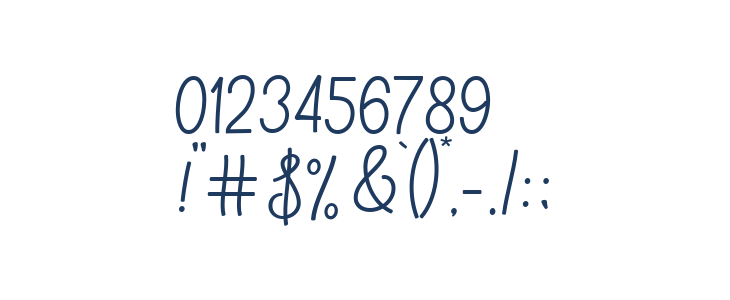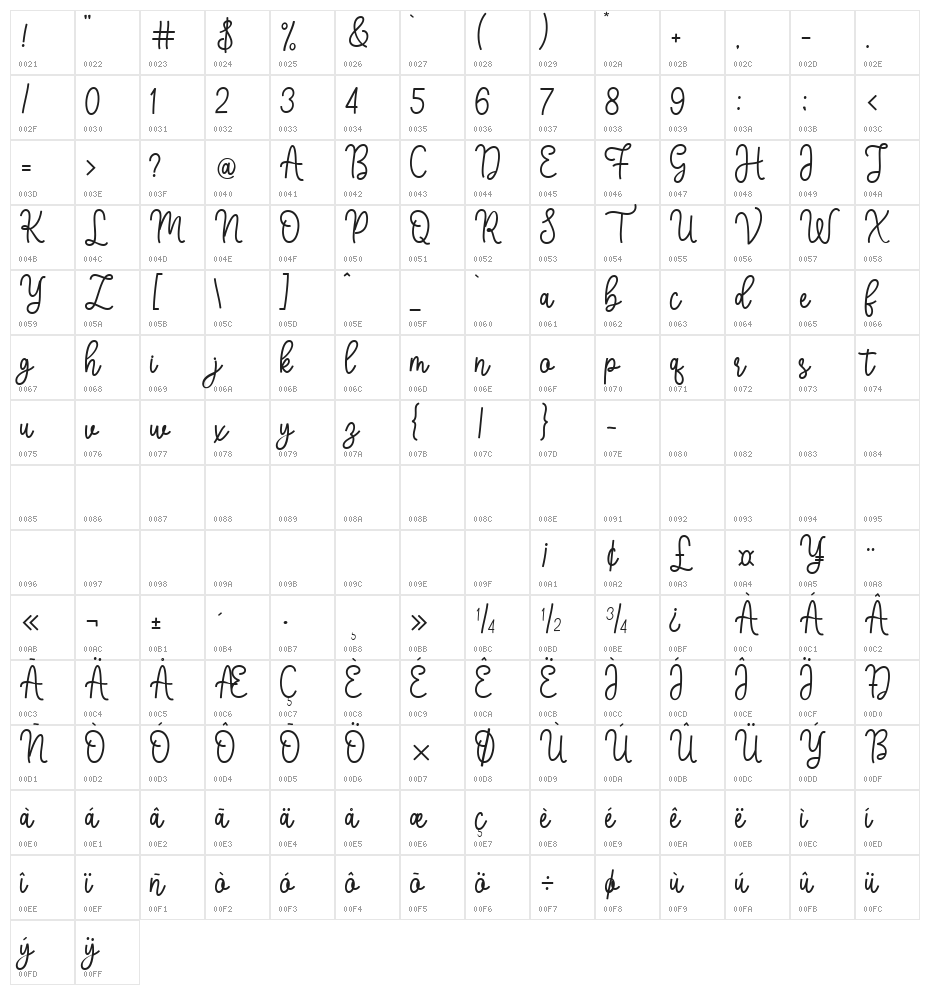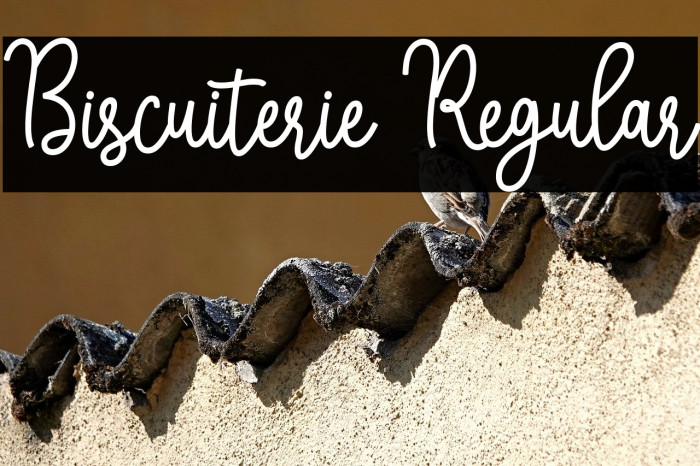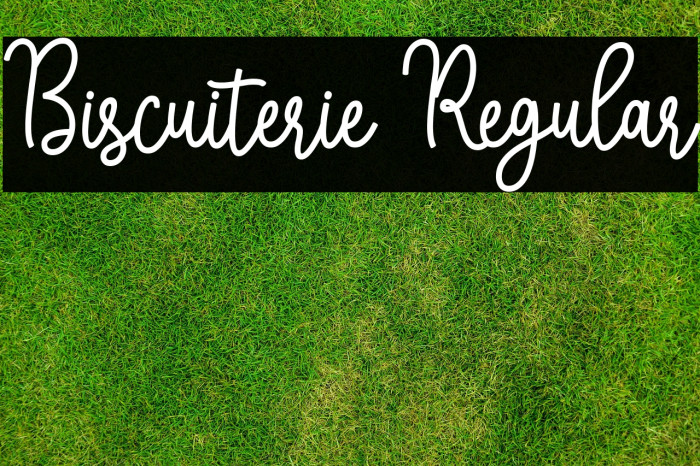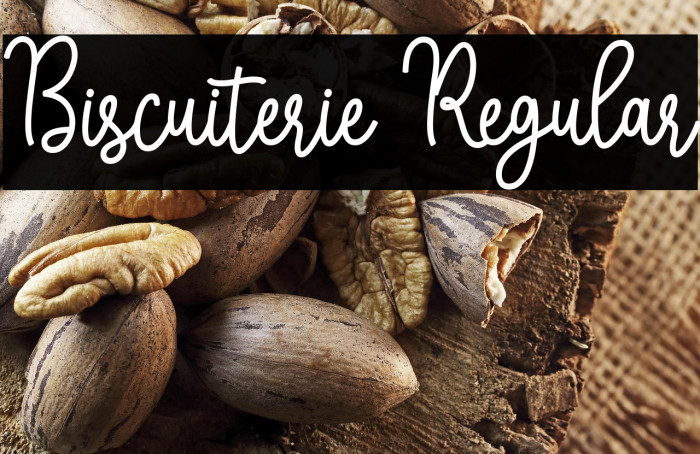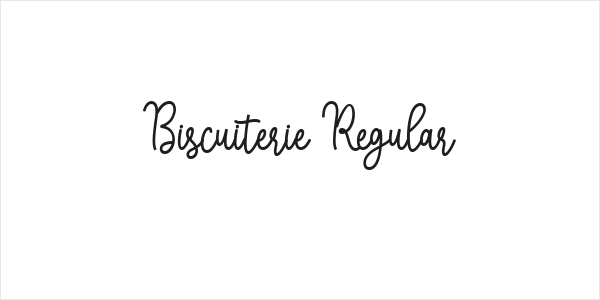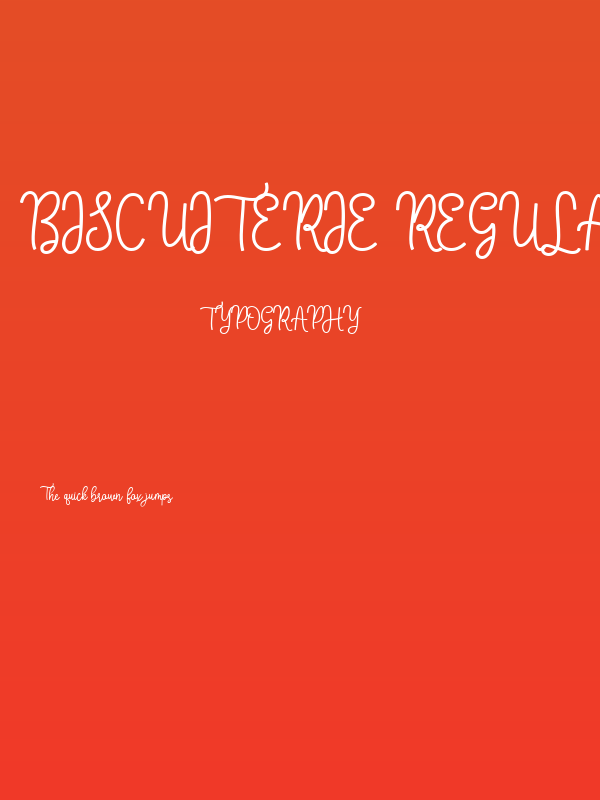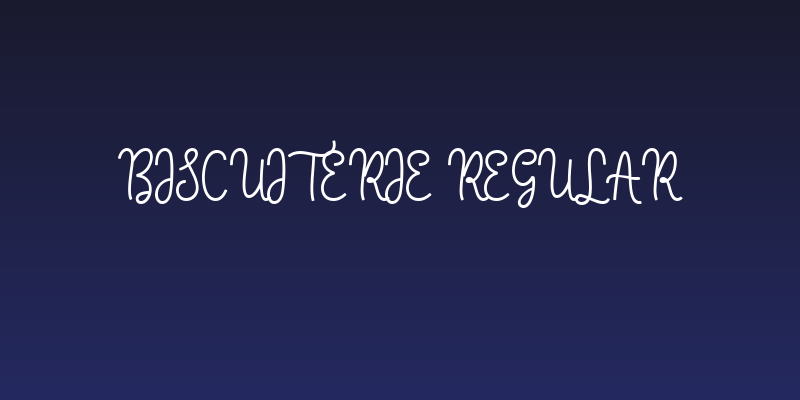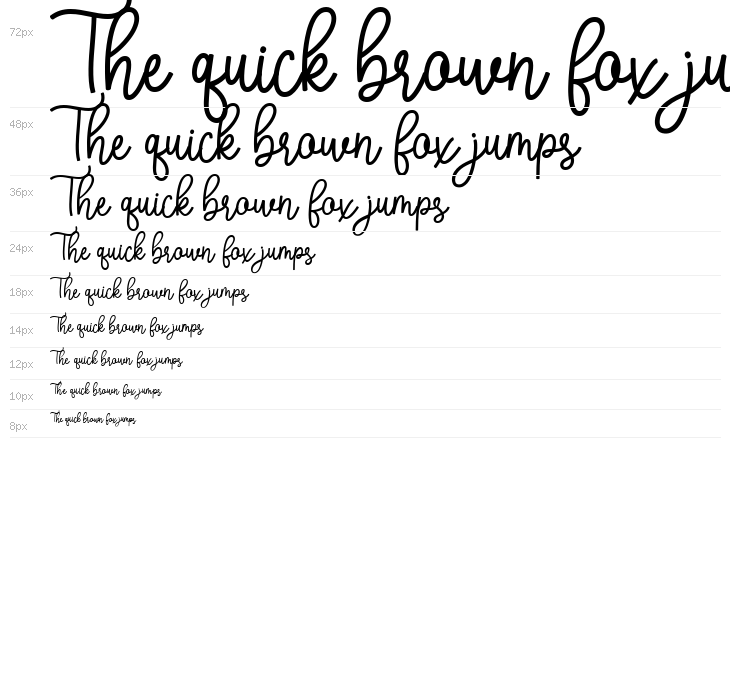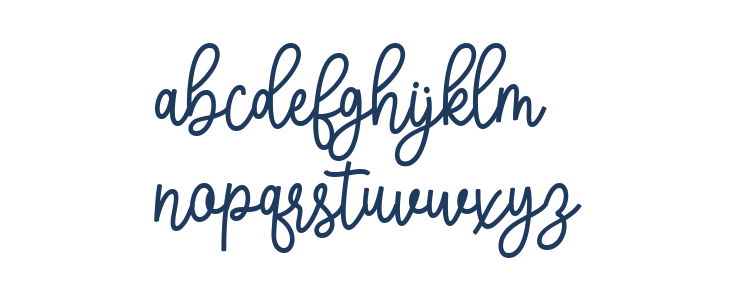
Biscuiterie Regular Font
Biscuiterie Regular Description
This font features a playful and whimsical script style, characterized by its fluid, connected strokes and elegant curves. The uppercase letters exhibit a charming, slightly irregular form, adding a touch of personality and uniqueness. The lowercase letters maintain a consistent flow, enhancing readability while preserving the font's artistic flair. Numbers and special characters are crafted with the same attention to detail, ensuring a cohesive look across all elements. The overall design is both modern and inviting, making it suitable for a variety of creative applications.